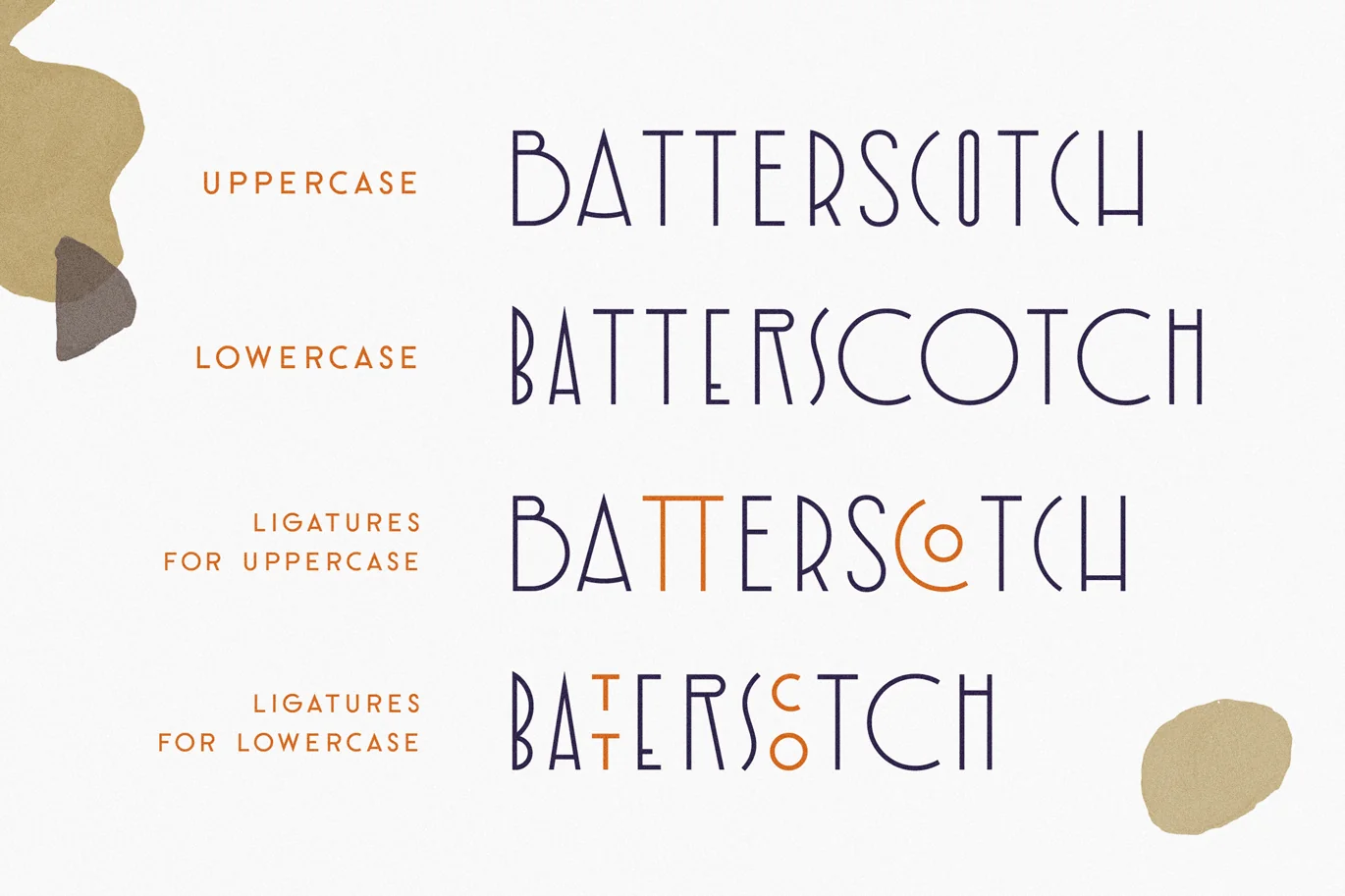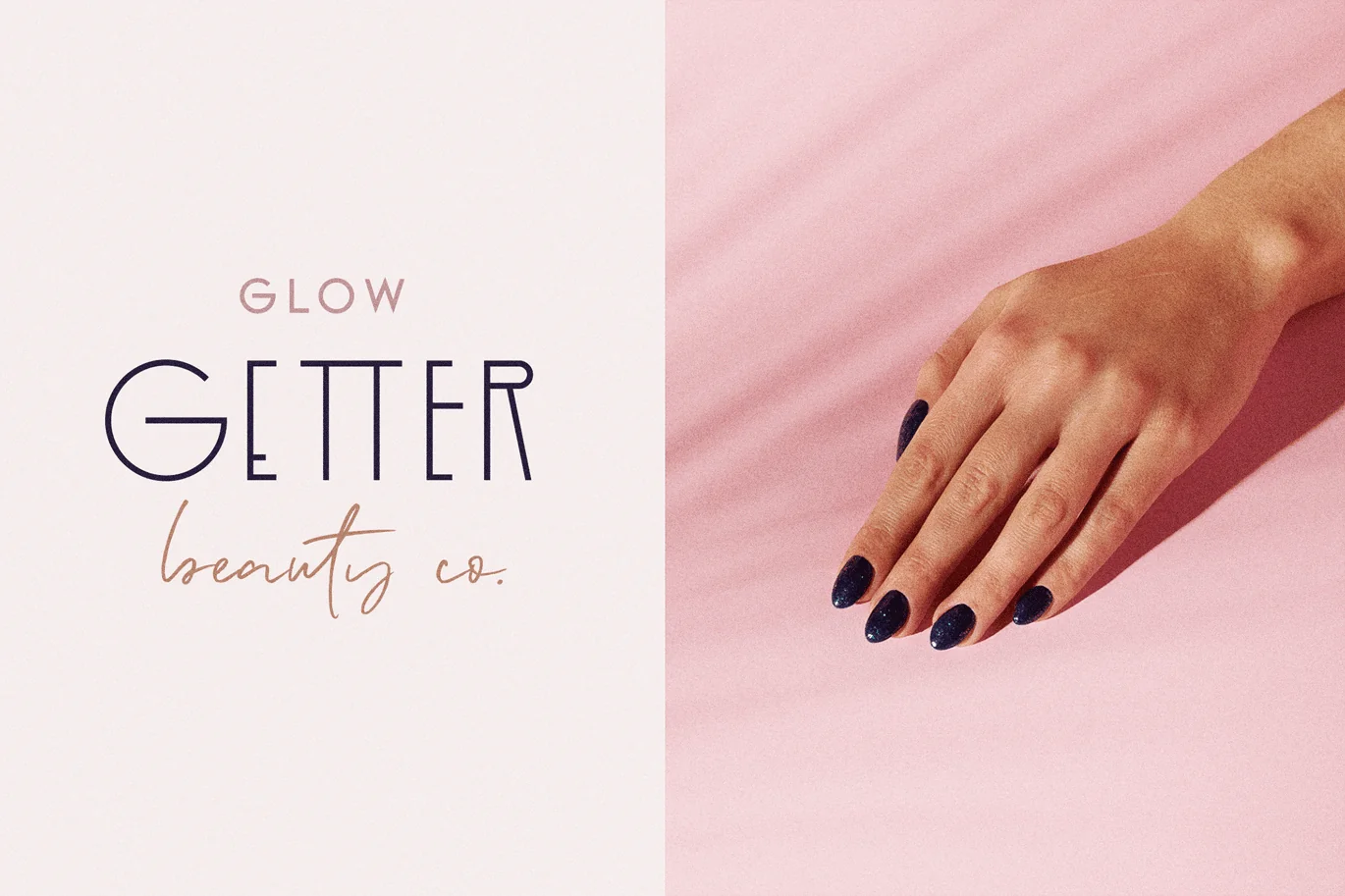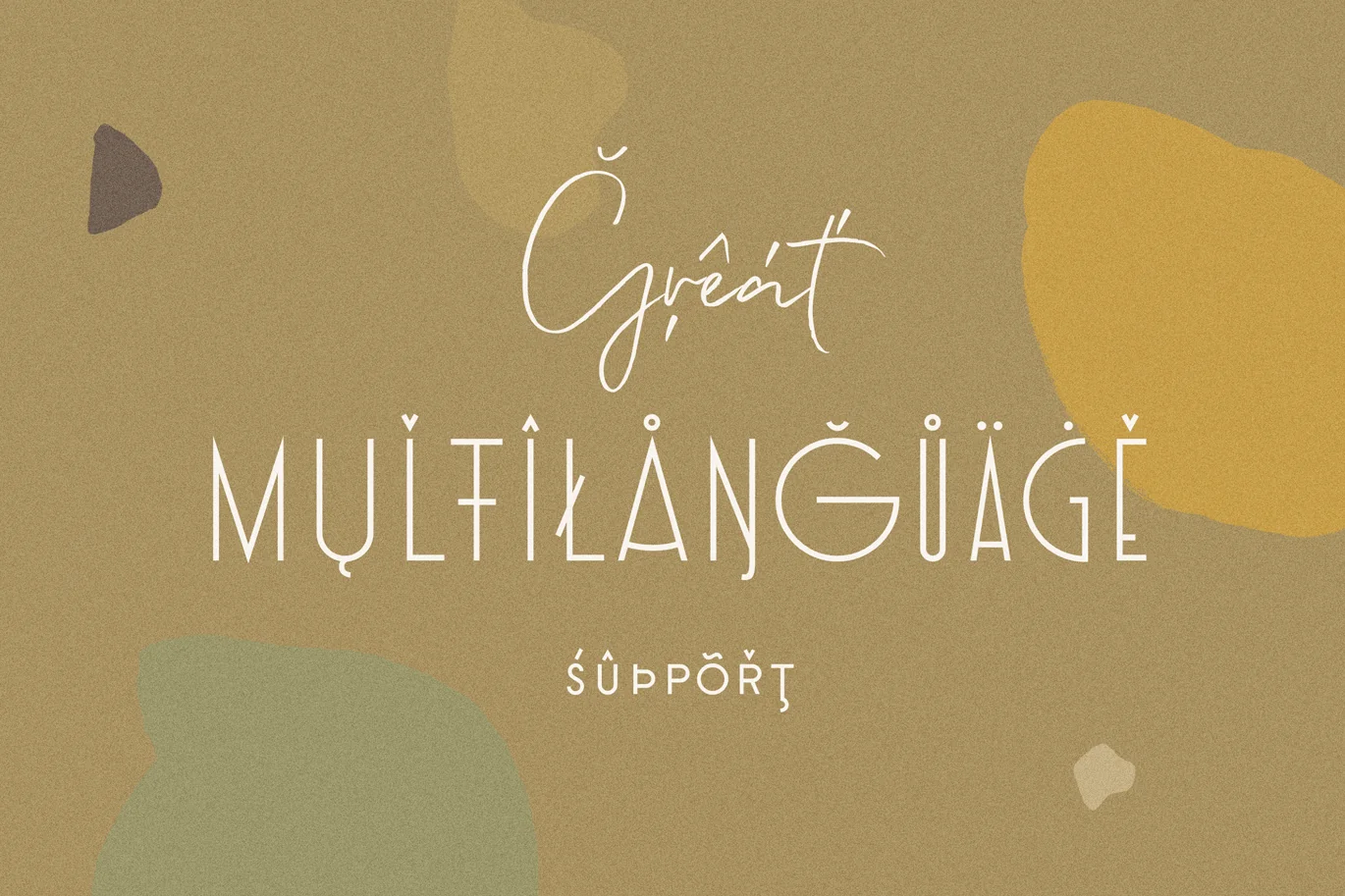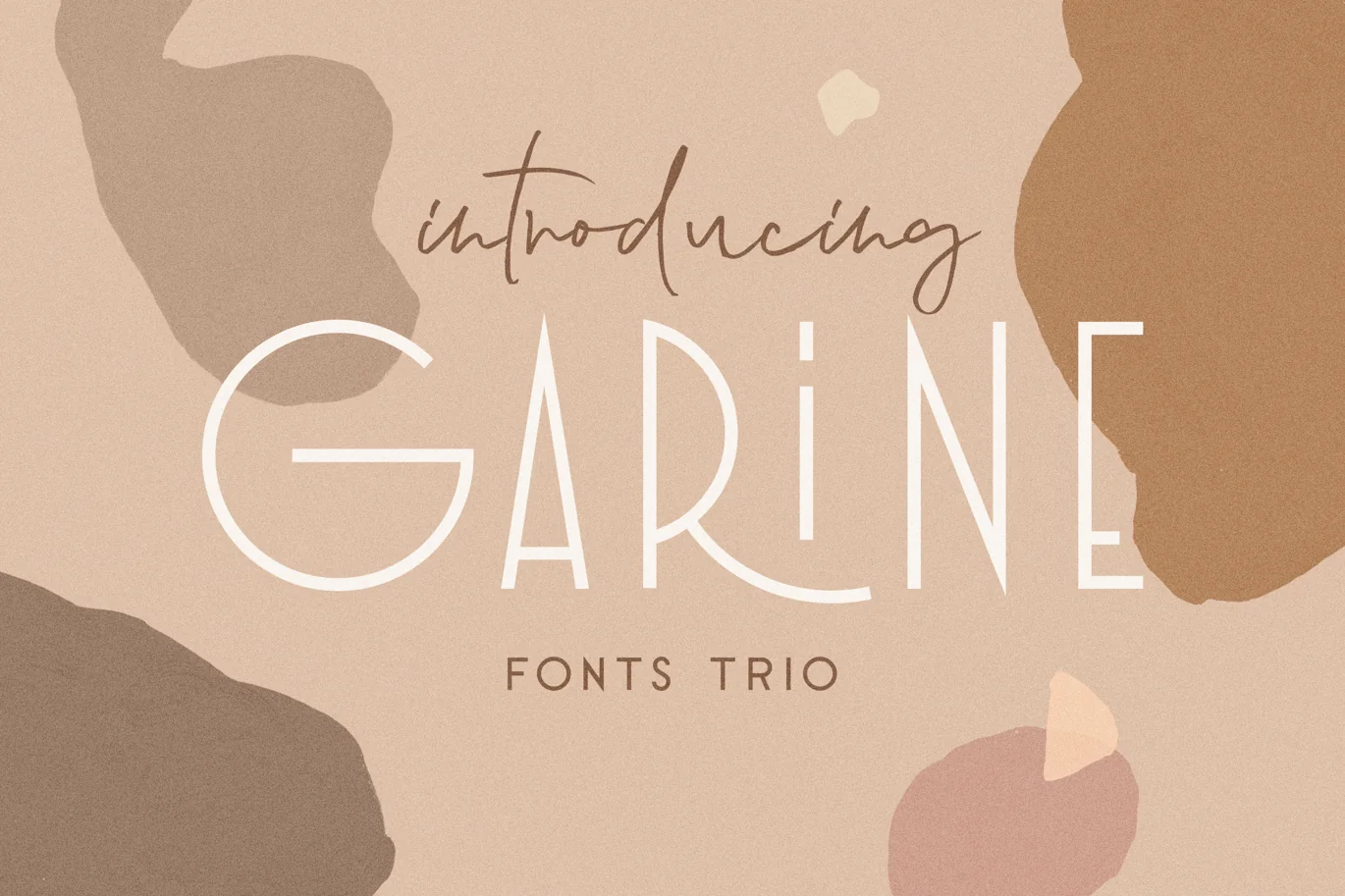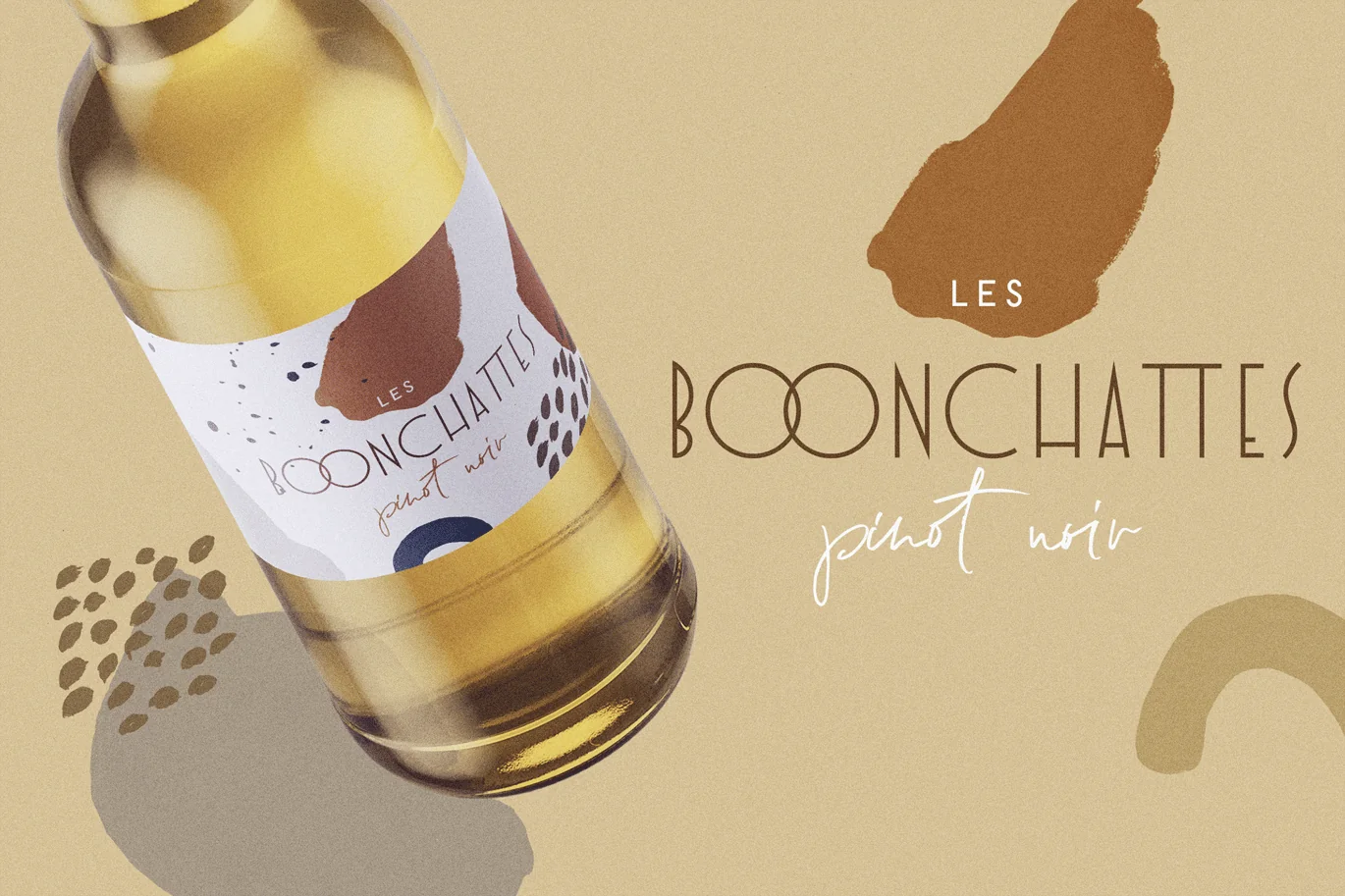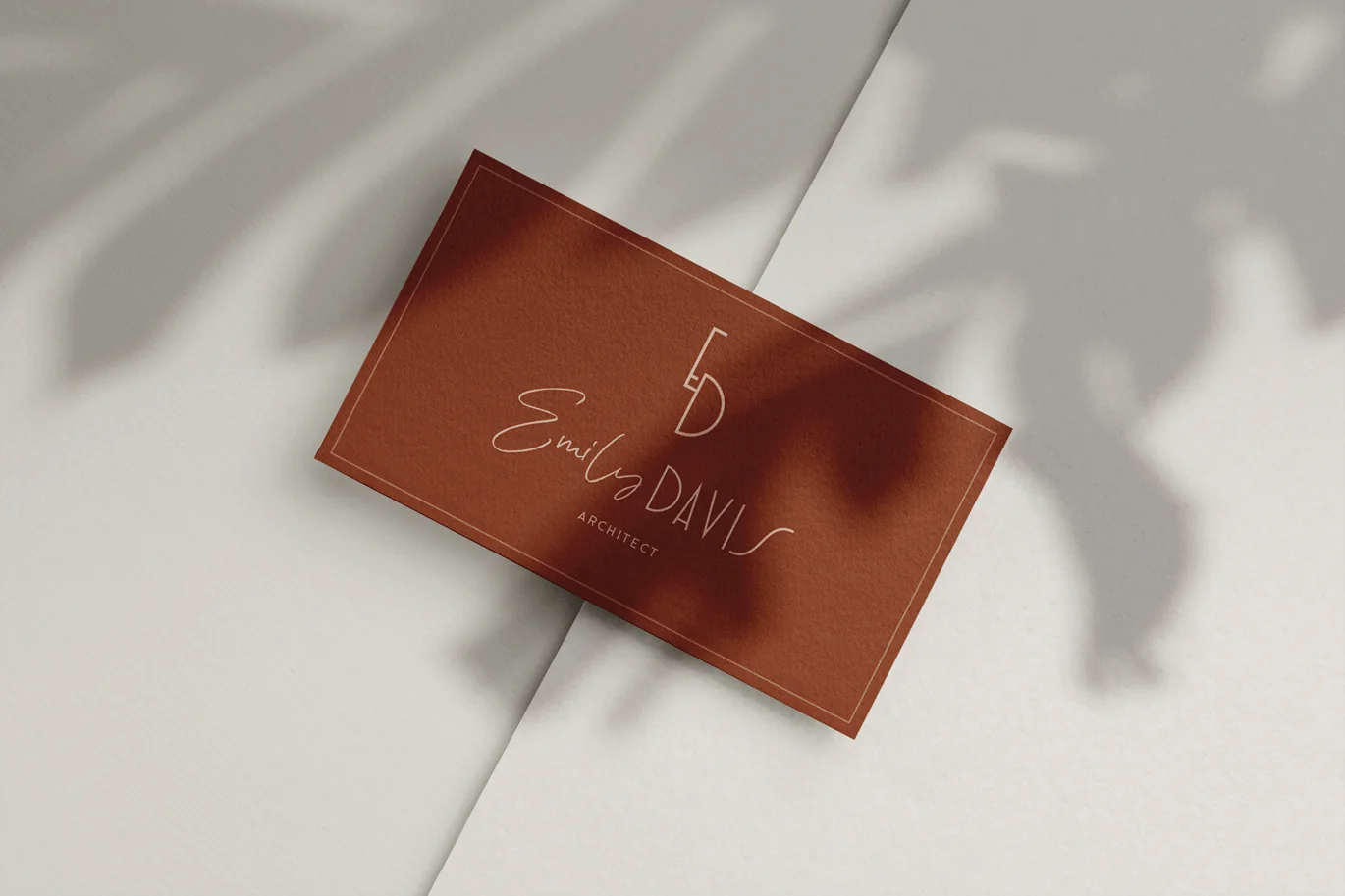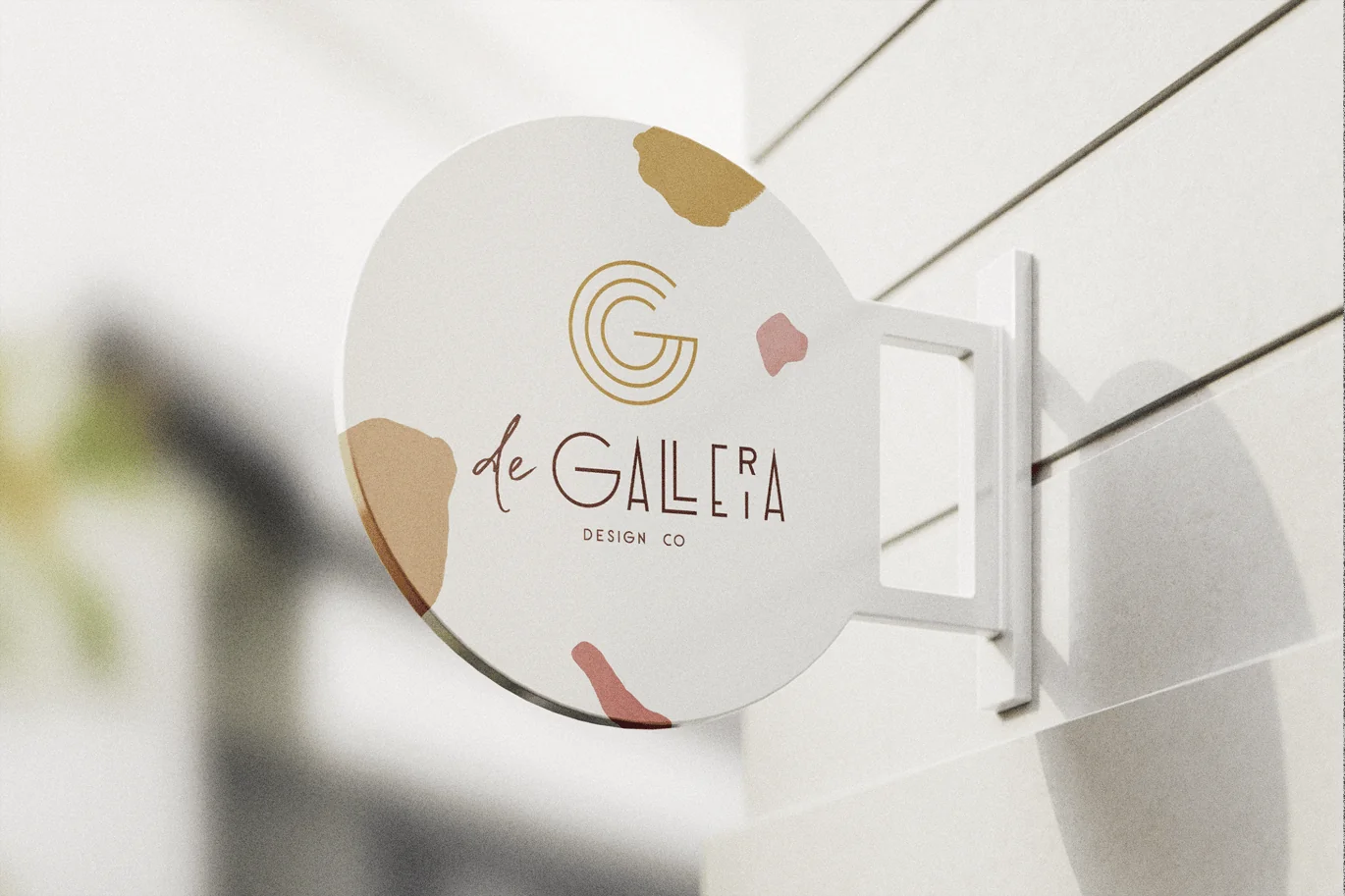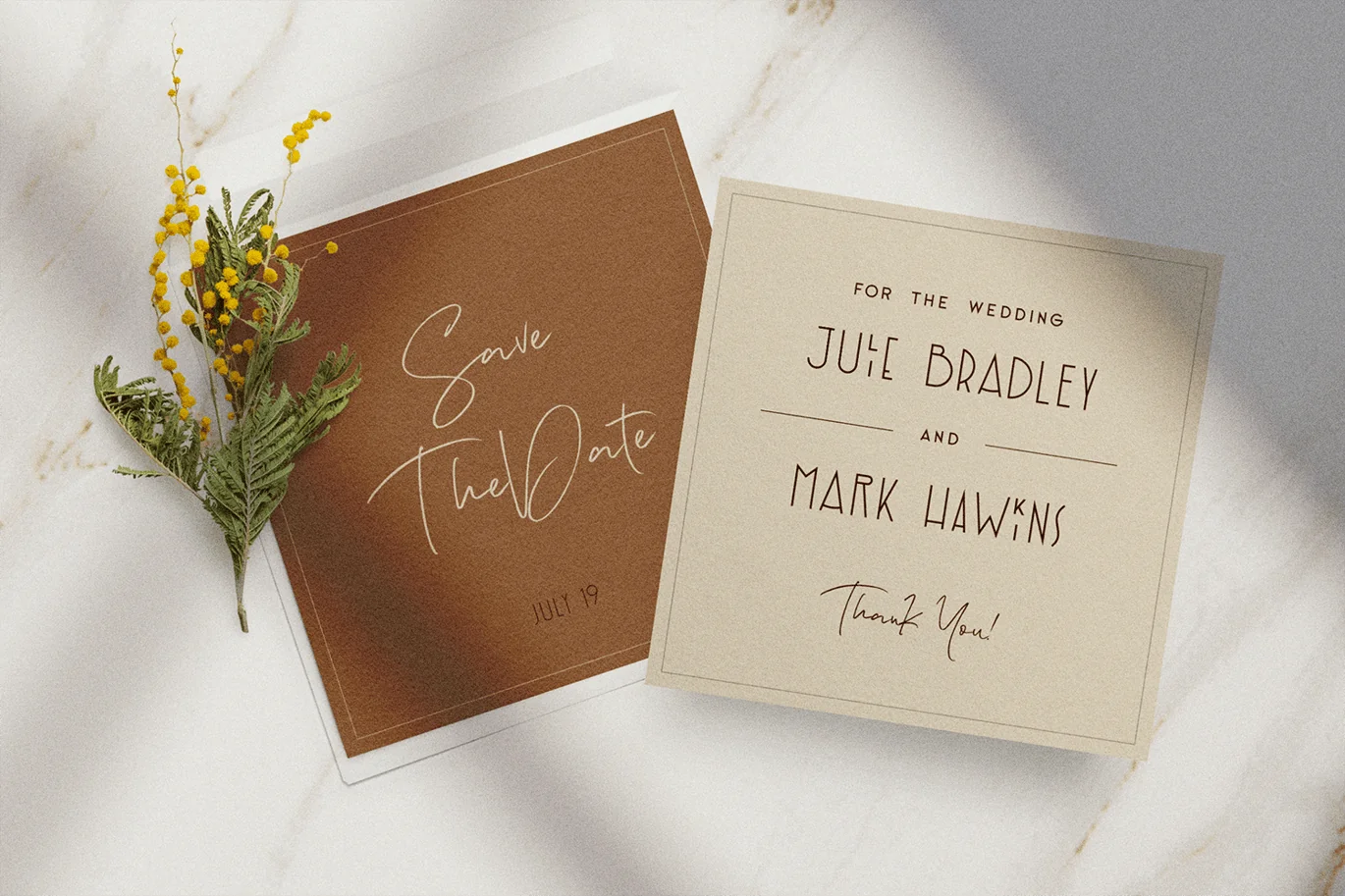
Garine Art Deco Display Fonts Trio
Introducing our new typeface trio, Garine – a contemporary, Art Deco-inspired display typeface full of character, quirky ligatures, and glyphs to keep your designs fresh.
This is a display font that we recommend using in the following types of work; magazines (titles and layouts), logos and branding, invitations, quotes, blog headers, posters, and advertising.